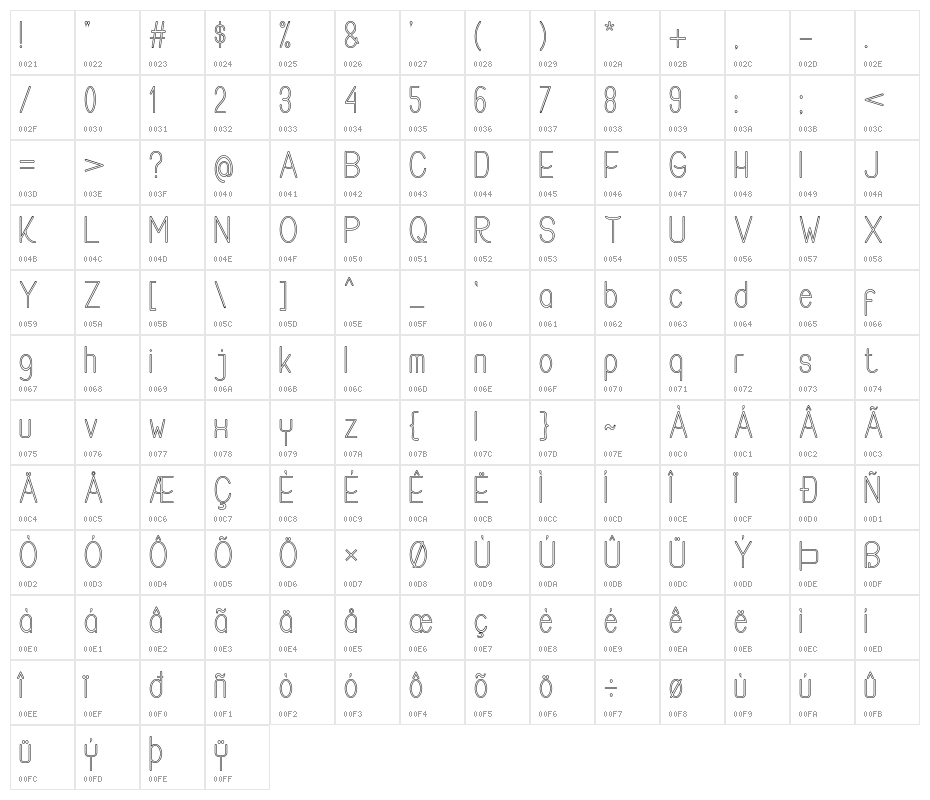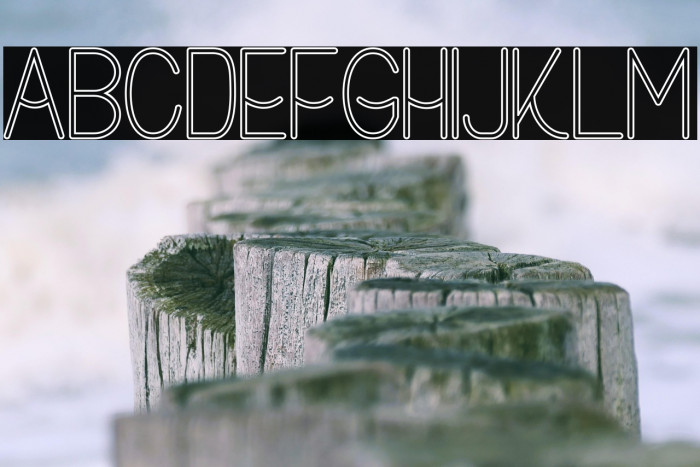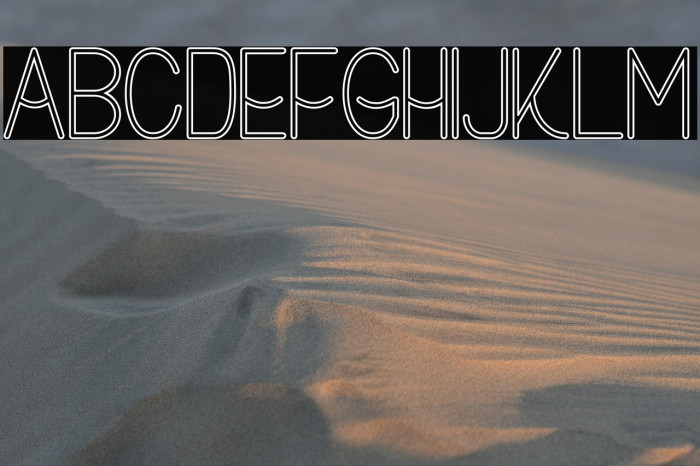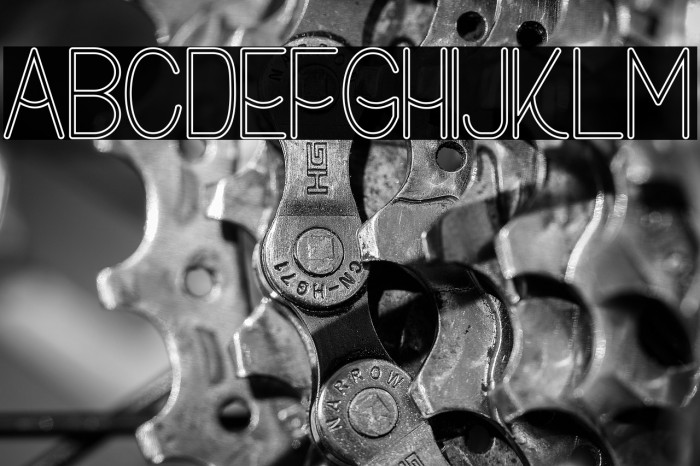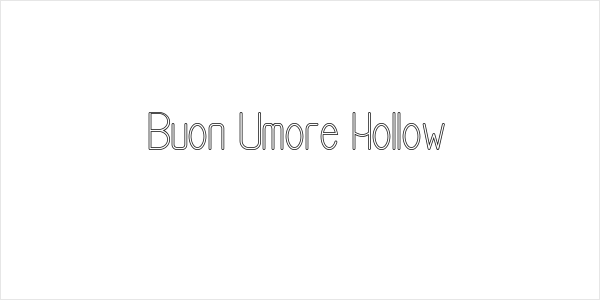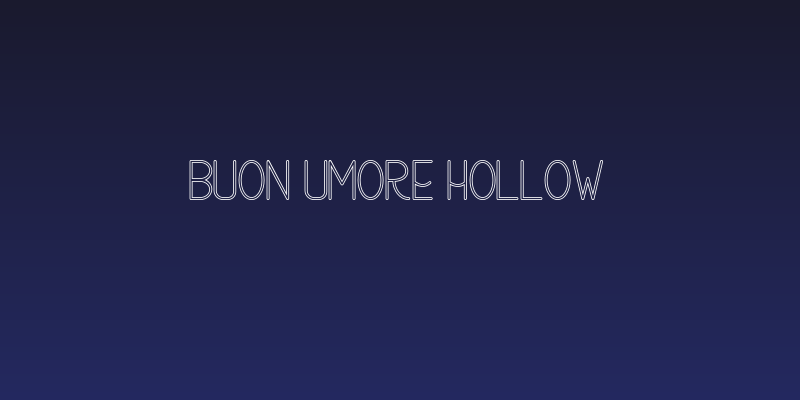
Buon Umore Hollow Font
Buon Umore Hollow Description
This font features a unique hollow design with clean, geometric lines. Each character is outlined, giving it a modern and airy appearance. The uppercase and lowercase letters maintain a consistent style, with rounded edges and a uniform stroke width. The numbers and special characters follow the same design principles, ensuring a cohesive look across all elements. The font's open structure makes it ideal for creating a sense of space and lightness in design projects.
| Proposed Projects | Ideal for modern branding, posters, and digital media where a light and airy feel is desired. |